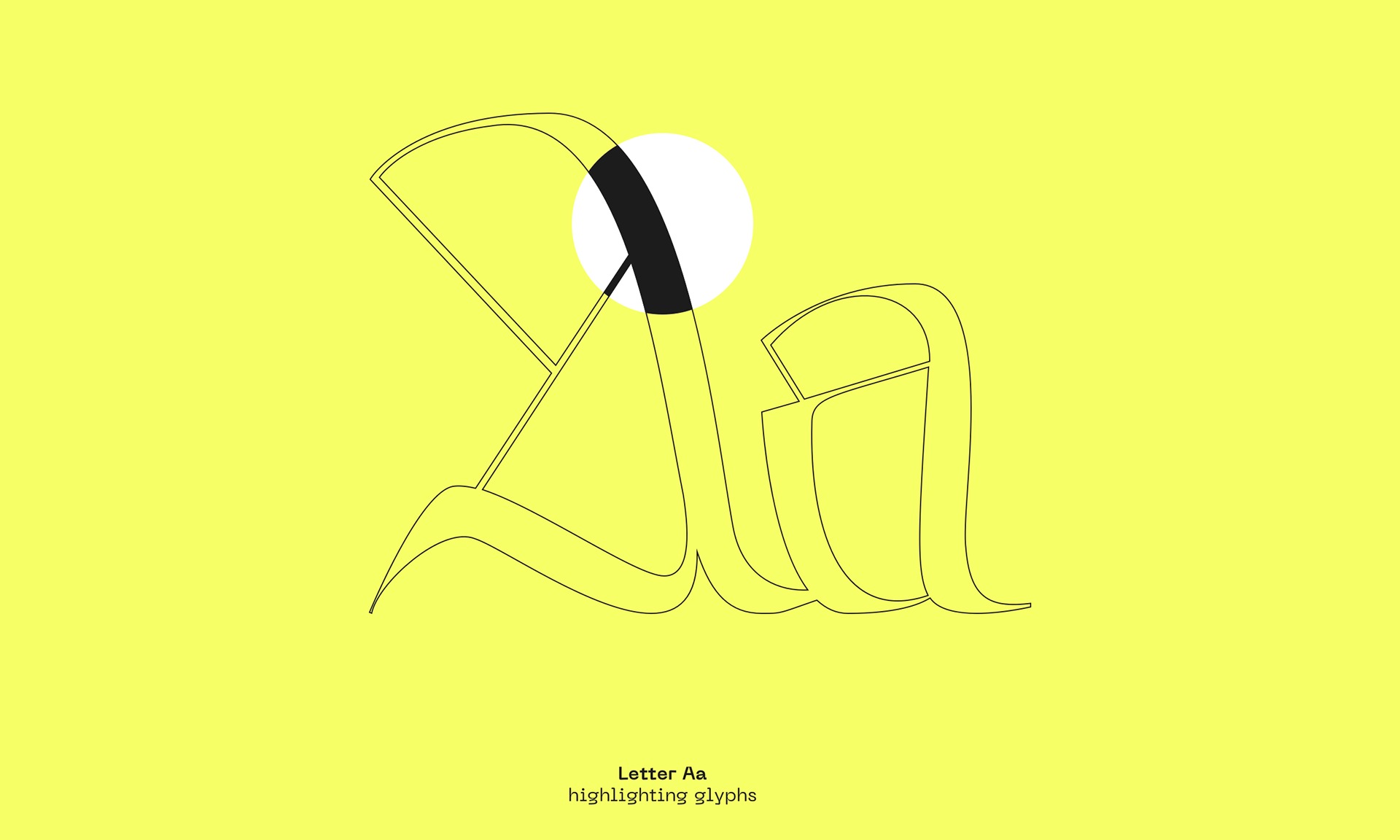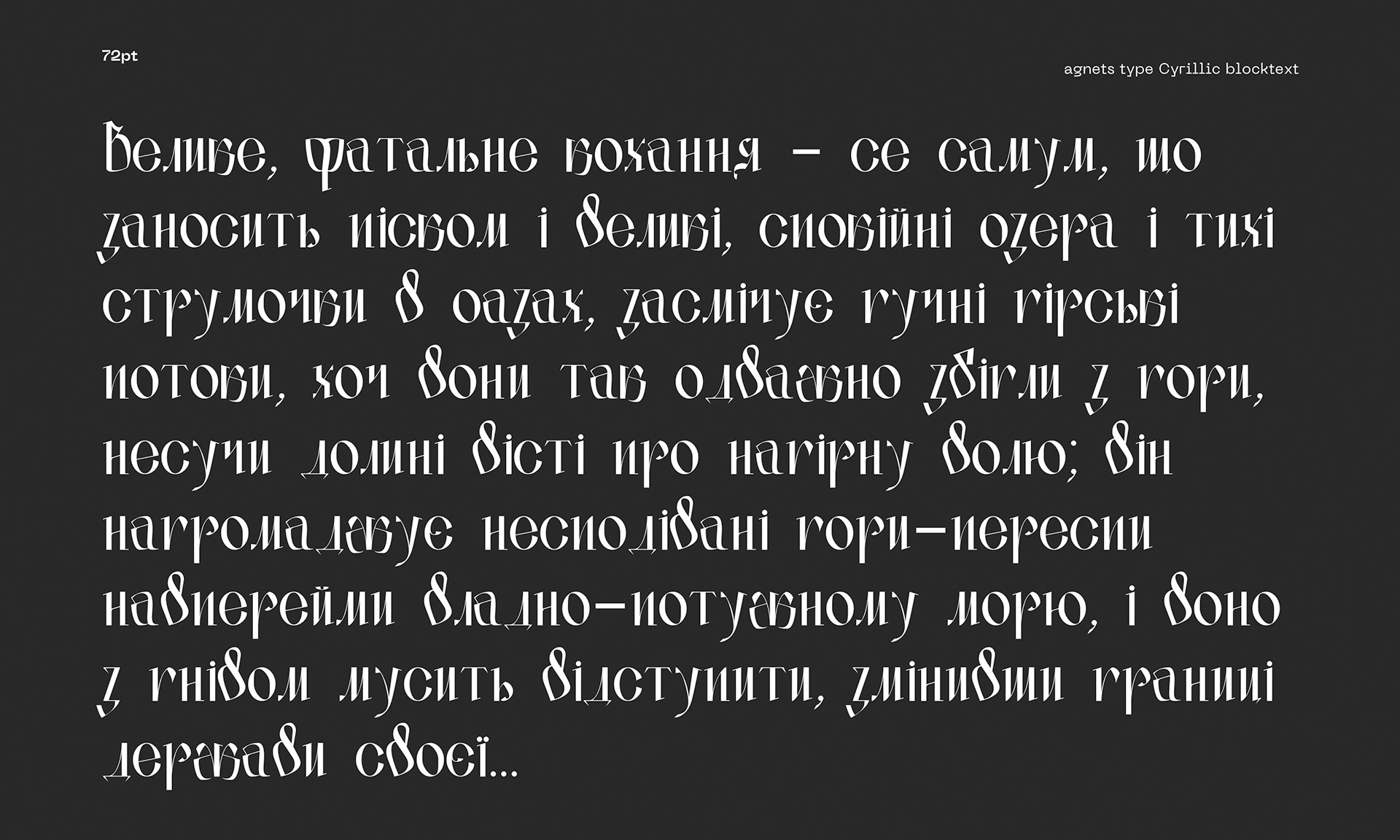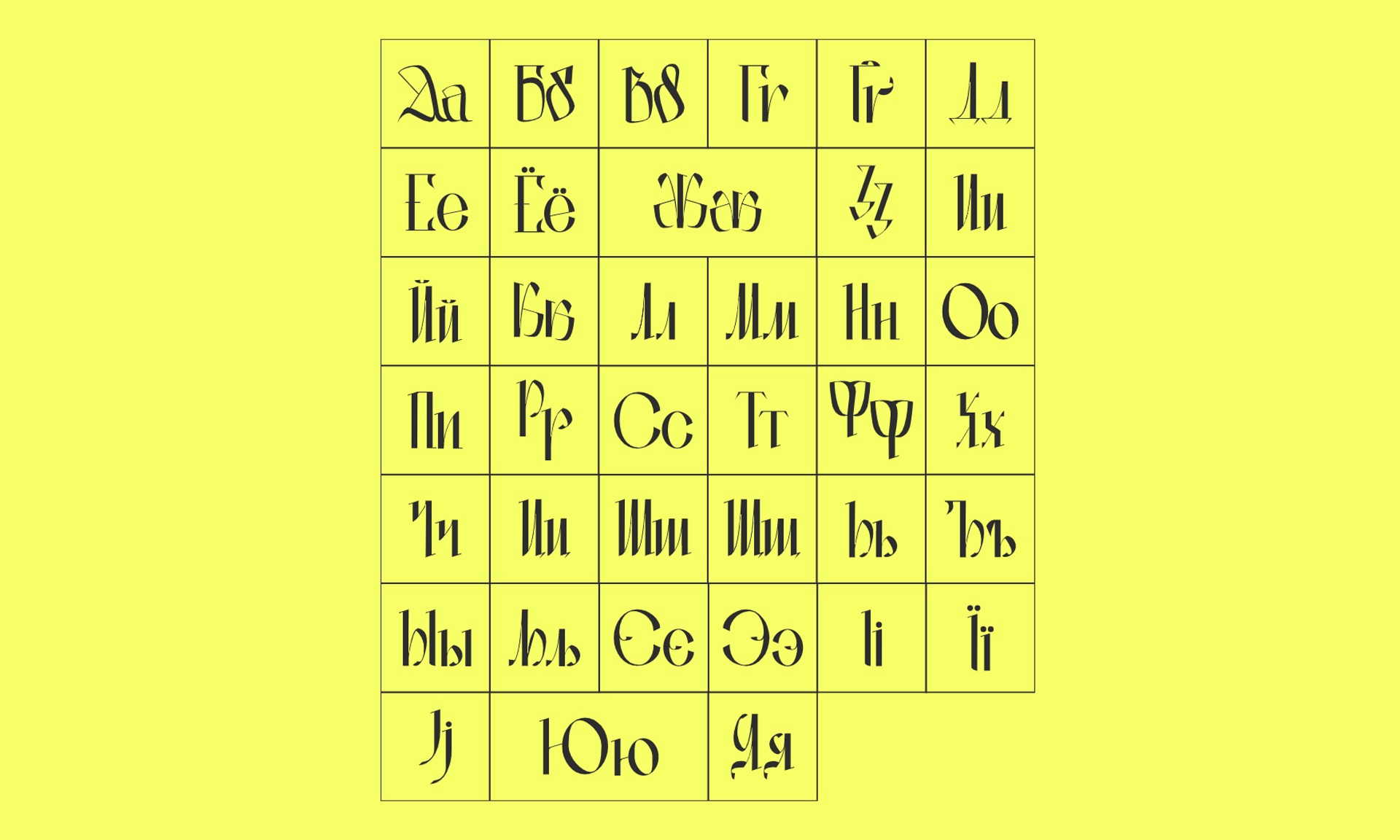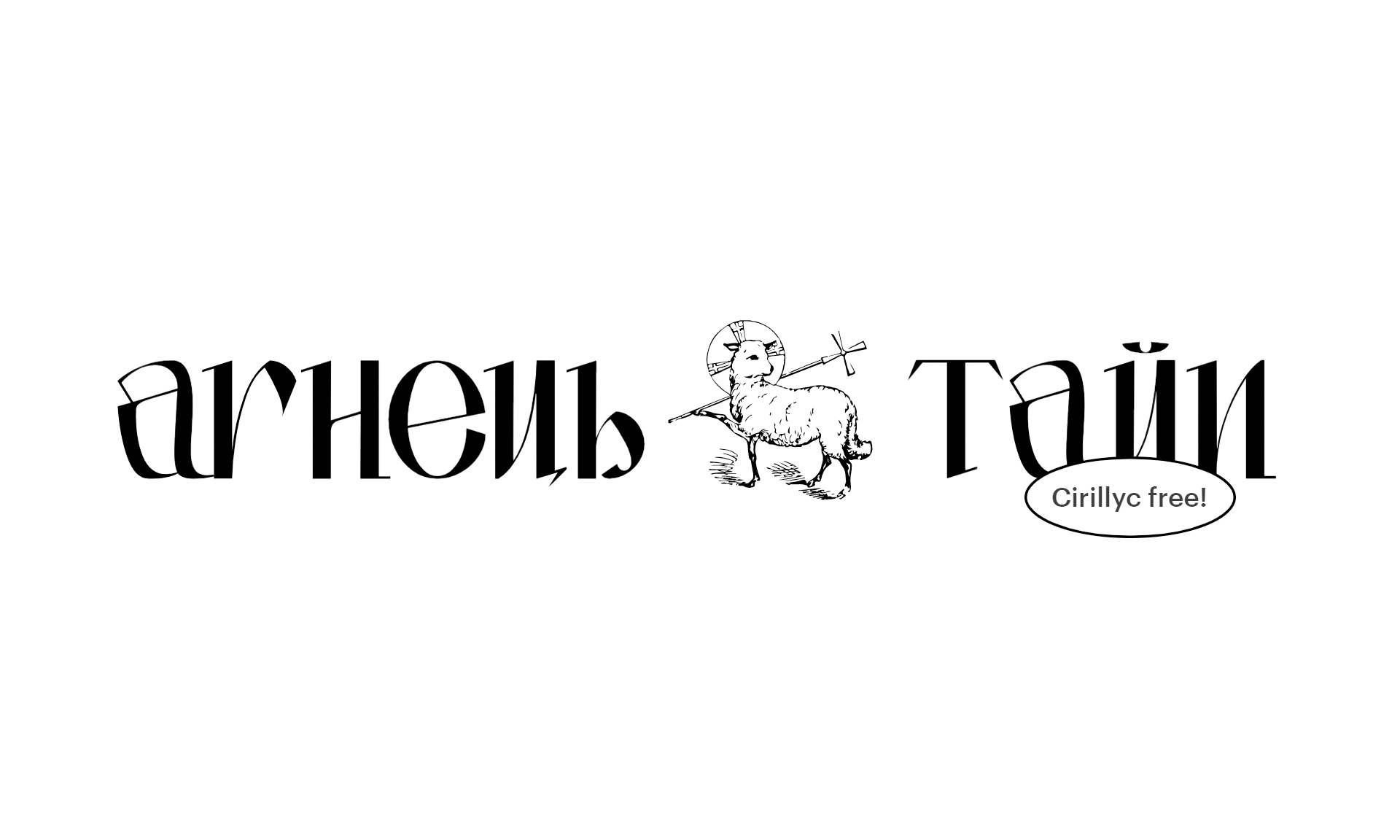
Agnets Type Font
Agnets Type Display Font is a contemporary display typeface with lots of psychedelic designs that comes with an emotional character that is bold to read. Agnets Type Font is very suitable when used for logo designs, badges, web layouts, headers, packaging and many others.